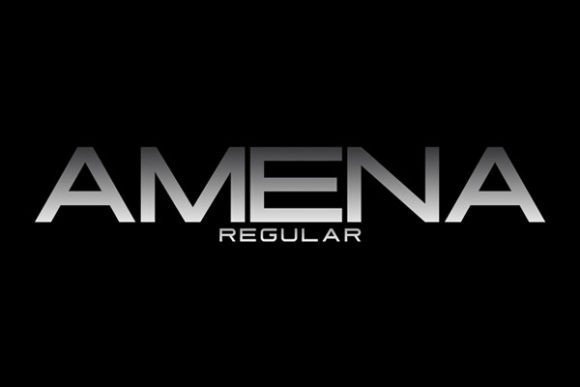
Discover the Power of Amena – Regular Font
You’ve finally landed on the perfect idea for a new project – a bold concept that screams for attention. You fire up your design software, and your mind starts racing with possibilities. But, as you begin to sketch out your vision, you realize that the right font is missing. That’s when you remember Amena – Regular Font – a game-changing sans serif font that’s about to take your creation to the next level.
Amena – Regular Font is more than just a font – it’s a statement piece. With its bold and assertive style, it has the power to elevate any project, from a captivating headline to a striking logo. As a designer, you know how crucial it is to have the right tools at your disposal. Amena – Regular Font is an invaluable addition to any font library, and we’re excited to share its potential with you.
Amena – Regular Font Key Features
- Font Family: Amena Regular, a modern sans-serif font designed for readability and versatility.
- Unique Characteristics: Amena Regular features a clean, minimalist design with subtle rounded edges, making it perfect for body text, headings, and titles.
Amena – Regular Font Review
Amena – Regular Font is a beautiful addition to any design project. Here’s what I think works well:
- ✨ Unique character set: Amena features a unique and elegant character set that sets it apart from other fonts.
- ✨ High legibility: The font is highly legible, making it perfect for body text and reading materials.
- ✨ Versatility: Amena works well in a variety of contexts, from print to digital media.
- ⚠️ Limited italic and bold options: Amena’s italic and bold styles are somewhat lacking, which can limit its use in certain design projects.
- ⚠️ May not be suitable for small text sizes: Amena’s font size may become too large or overwhelming when used in small text sizes.
Overall, Amena – Regular Font is a great choice for designers who want a unique and elegant font for their projects. While it has some limitations, its unique character set and high legibility make it a valuable addition to any design library.
The Amena – Regular Font is versatile and can be used for a variety of projects, including:
- Website headers and footers
For the most effective use of the Amena – Regular Font, consider the following tips:
- Use it for body text and headlines to create a consistent look.
- Combine it with other fonts
Alternatives to Amena – Regular Font
1. Open Sans Regular
Open Sans Regular is a modern sans-serif font that is highly legible and versatile. It is suitable for body text, headings, and titles. This font is similar to Amena – Regular Font in terms of its clean and minimalist design, but it has a more geometric feel.
Comparison: Open Sans Regular is more geometric and modern than Amena – Regular Font, which has a more traditional feel.
2. Lato Regular
Lato Regular is a sans-serif font that is highly readable and works well in digital environments. It is suitable for body text, headings, and titles. This font is similar to Amena – Regular Font in terms of its clean and minimalist design, but it has a more rounded feel.
Comparison: Lato Regular is more rounded and friendly than Amena – Regular Font, which has a more neutral feel.